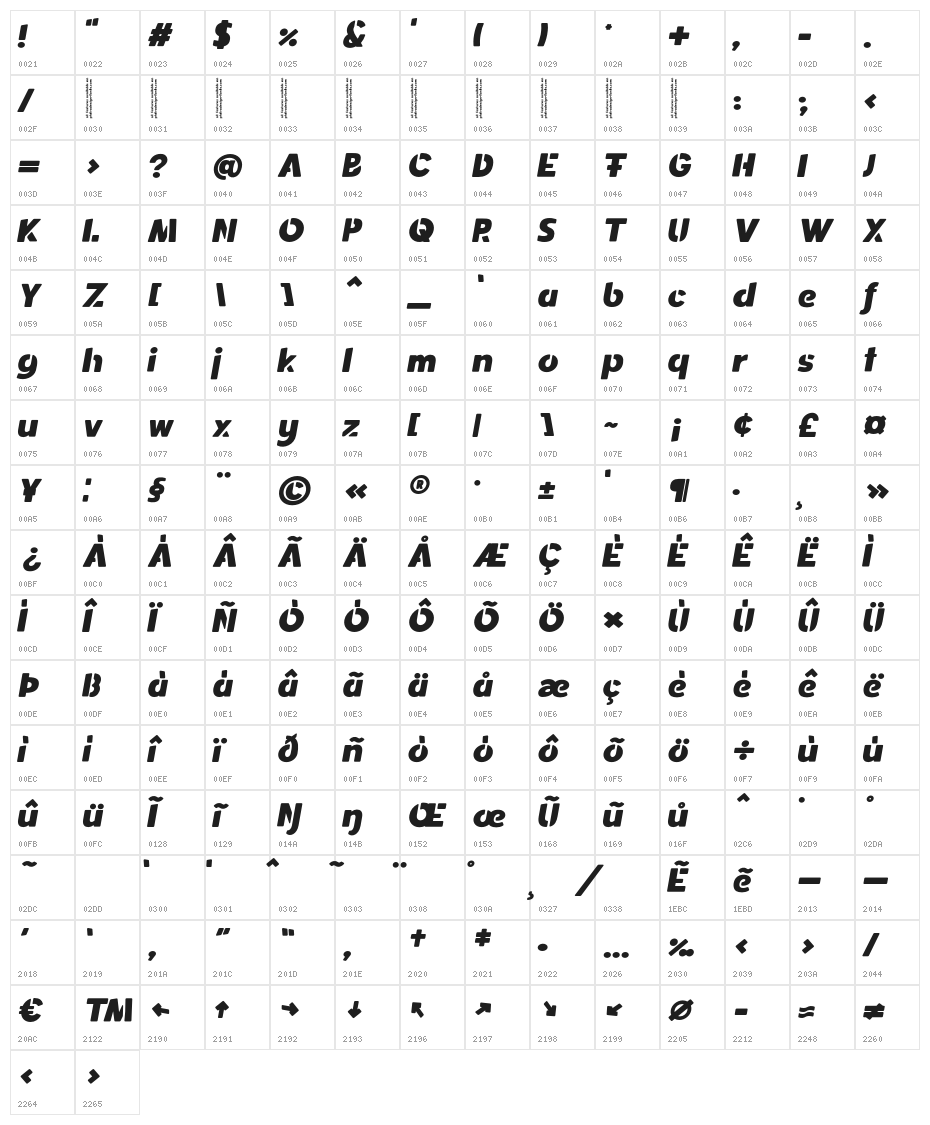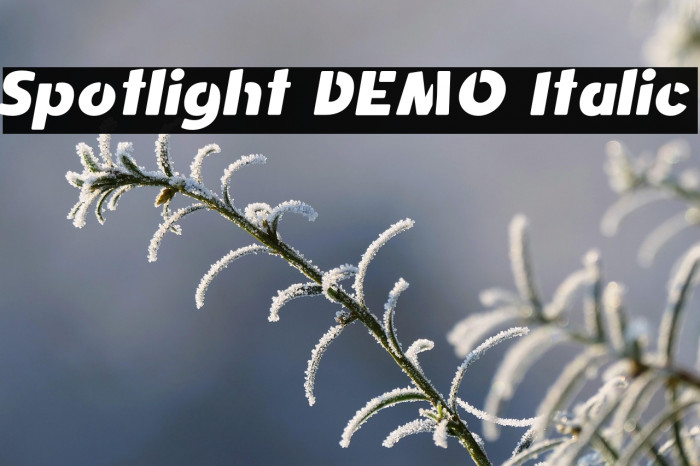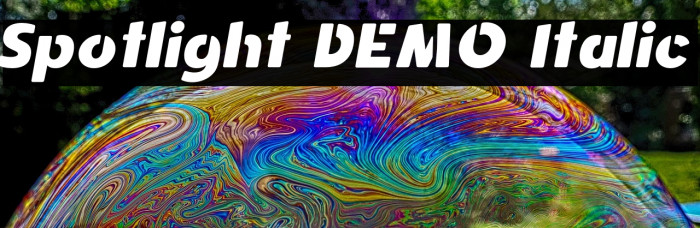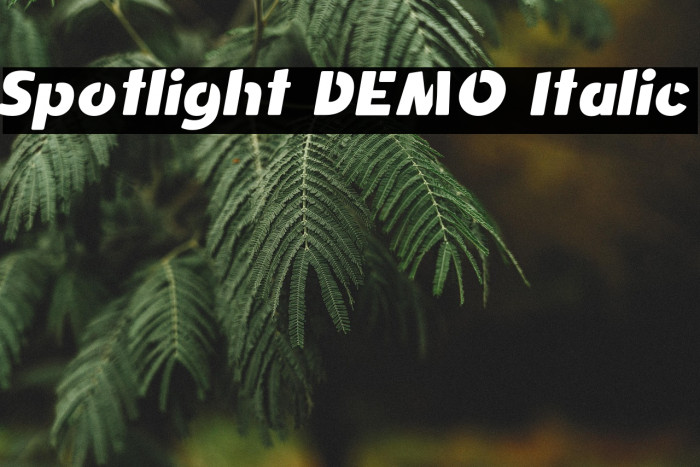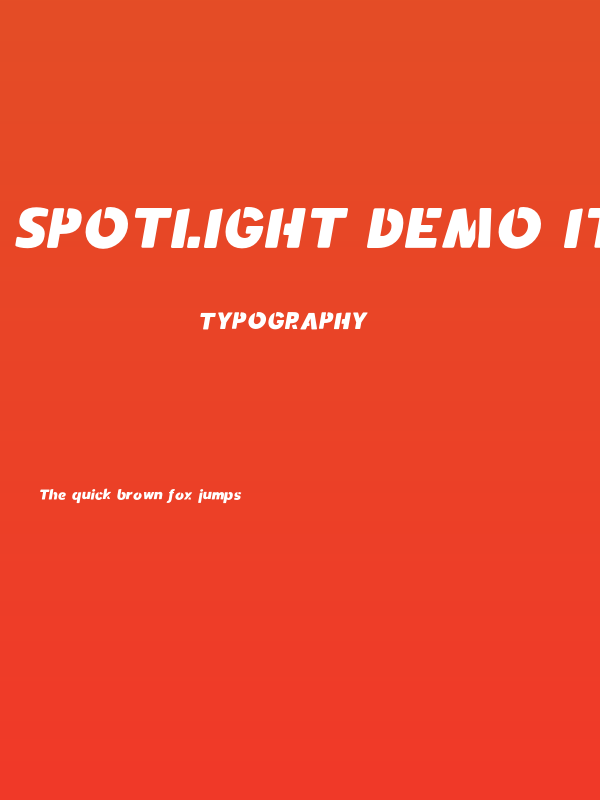
Spotlight DEMO Italic Font
Spotlight DEMO Italic Description
This font features a bold and dynamic style with a strong italic slant, giving it a sense of movement and energy. The characters are thick and robust, with a slightly condensed appearance that enhances its boldness. The uppercase letters are particularly striking, with unique angular cuts and a modern flair. The lowercase letters maintain the same boldness, with rounded edges that add a touch of softness to the overall design. The numerals and special characters are consistent with the font's bold and italicized style, making it versatile for various uses.
| Use Case | Headlines, Logos, Advertising |
| Proposed Projects | Ideal for branding, advertising, headlines, and any project that requires a strong visual impact. |